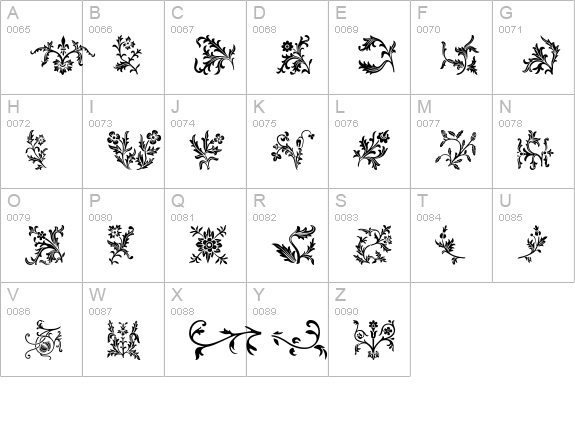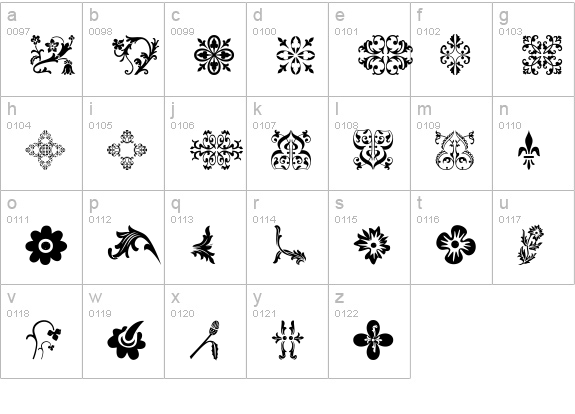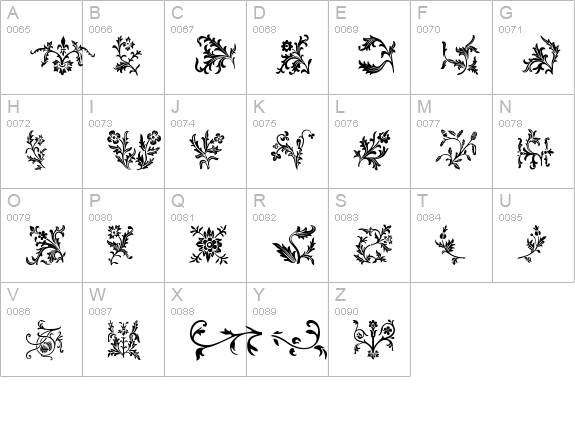
Floralia Font Details
Floralia font is a stunning typeface that exudes elegance and sophistication. With its delicate floral-inspired design, this font brings a touch of nature to any project. The intricate details and graceful curves of Floralia font make it perfect for adding a touch of femininity and beauty to your designs. What makes Floralia font even more appealing is that it is completely free to download at FontsMarket.com. This means that you can easily access this gorgeous font without any cost, making it a valuable addition to your font collection. Whether you're working on invitations, branding, or any other creative project, Floralia font is sure to make a lasting impression with its unique charm and style. Download Floralia font today and let its beauty enhance your designs!